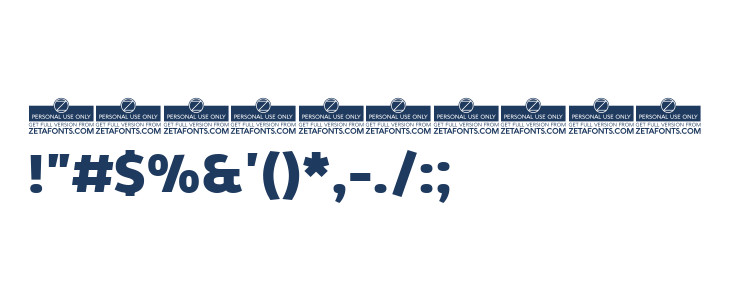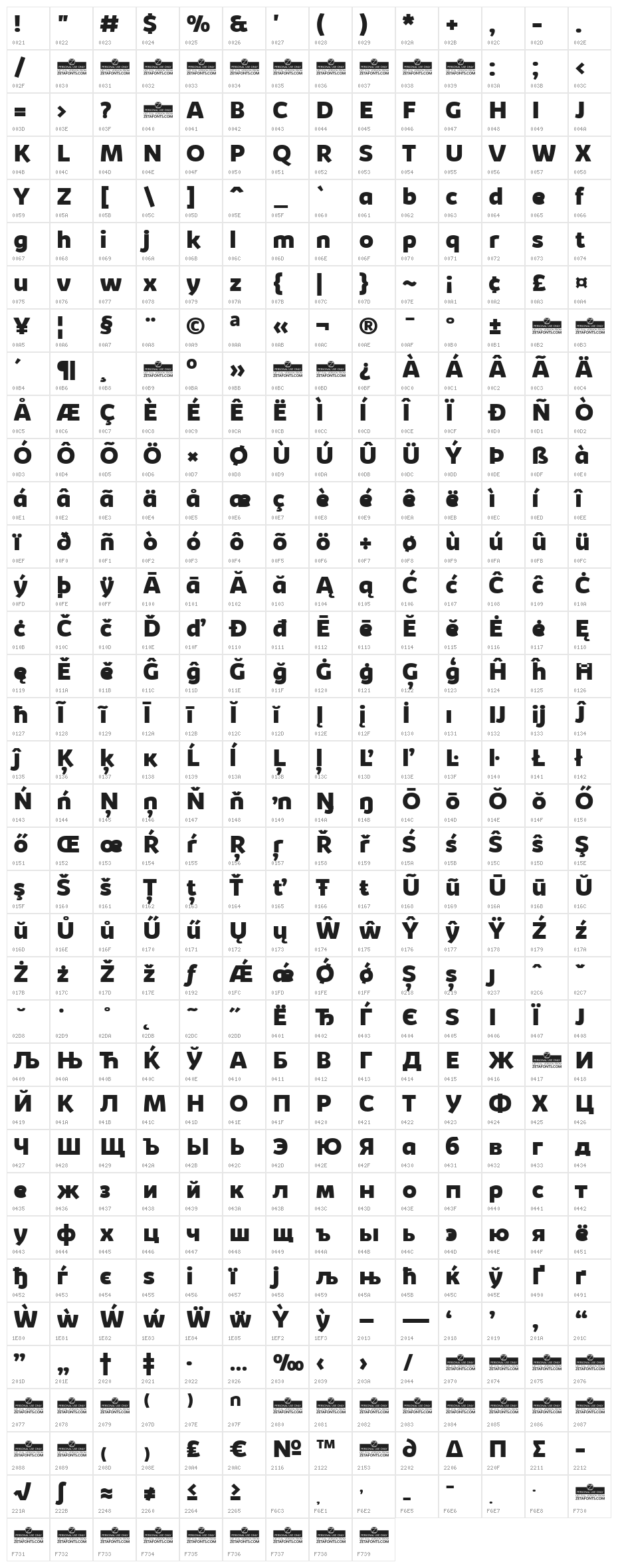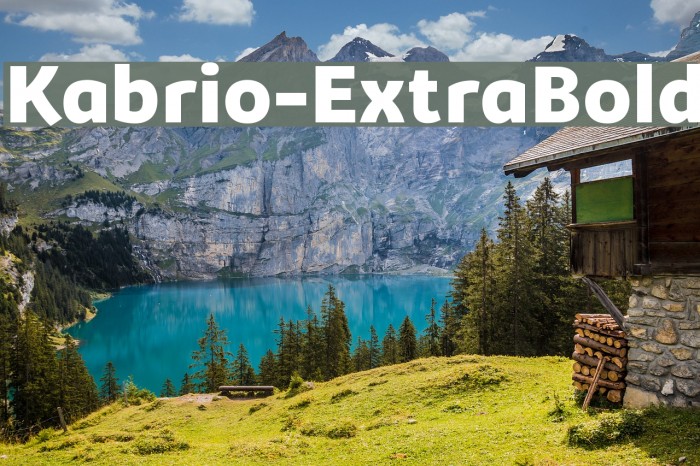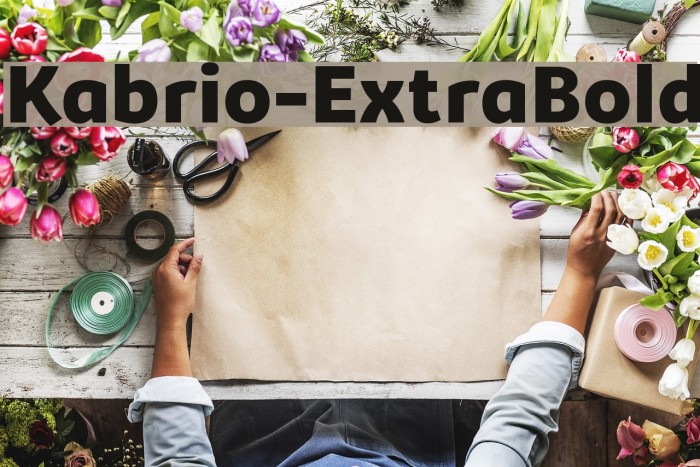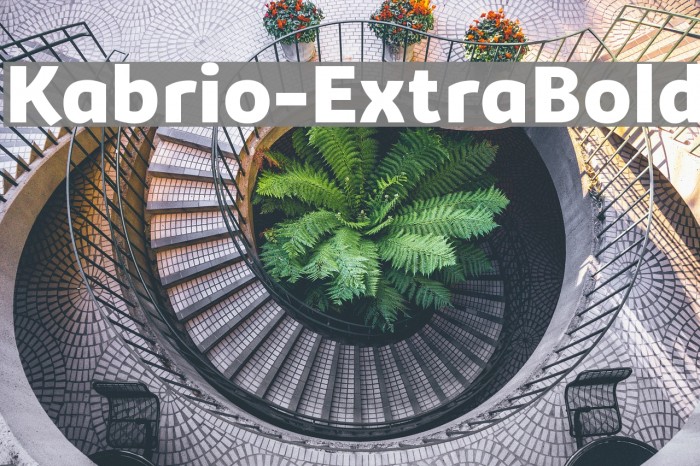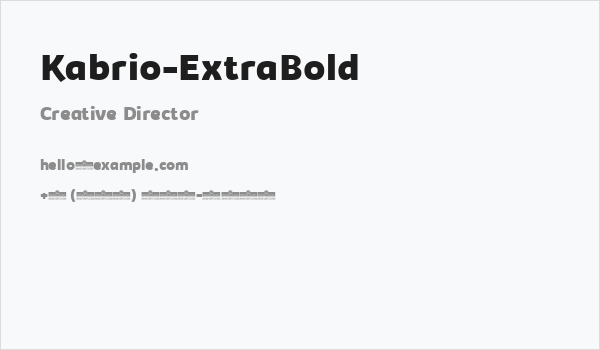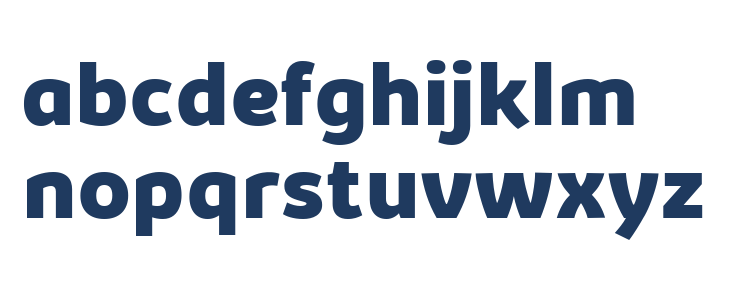
Kabrio-ExtraBold Font
Kabrio-ExtraBold Description
This typeface exhibits a bold and robust character with a modern aesthetic. The uppercase and lowercase letters are designed with a strong presence, featuring thick strokes and a uniform weight that conveys confidence and clarity. The characters are well-balanced, with a slightly condensed width that enhances readability while maintaining a compact form. The numerals and special characters are crafted with the same boldness, ensuring consistency across all elements. The font's overall style is clean and straightforward, making it suitable for a variety of applications where impact and legibility are key.
| Proposed Projects | Ideal for branding, advertising, headlines, and any project requiring a strong visual impact. |